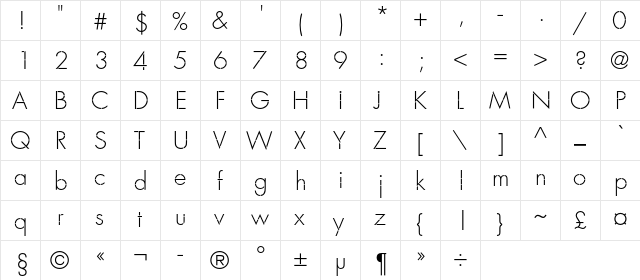
FavoritTrafLightC Regular
Design Context for FavoritTrafLightC Typeface
FavoritTrafLightC offers clean, dependable letterforms without strong stylistic allegiance, making it a practical choice for designers who need flexibility. Its slender proportions lend an understated elegance to any composition.